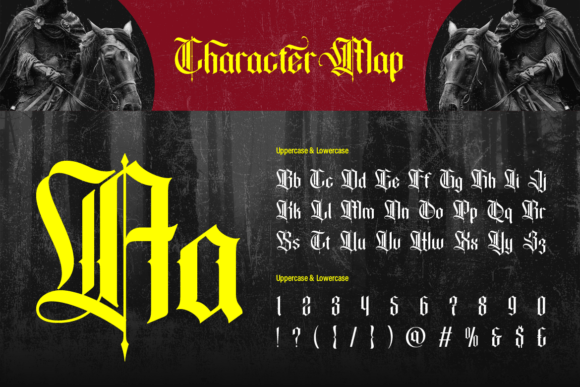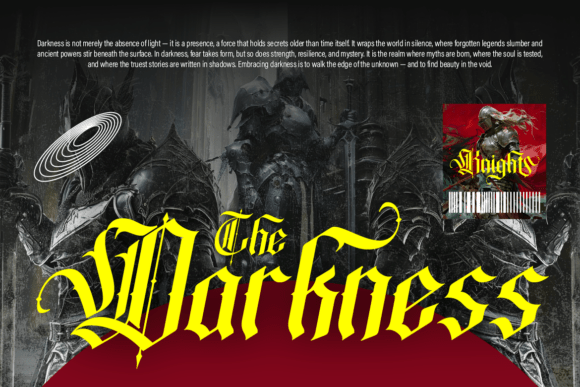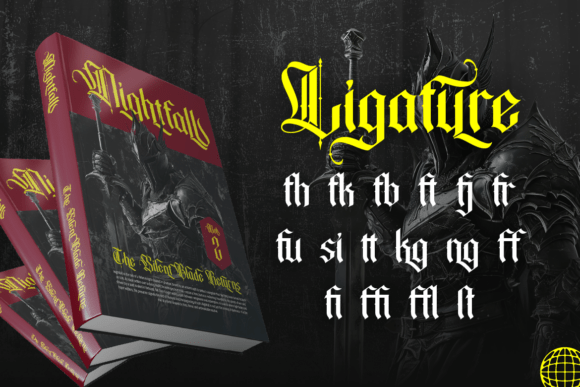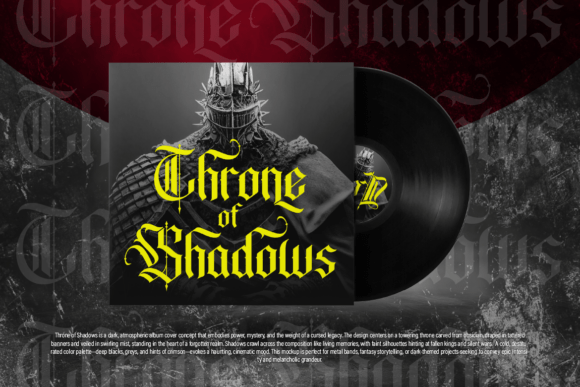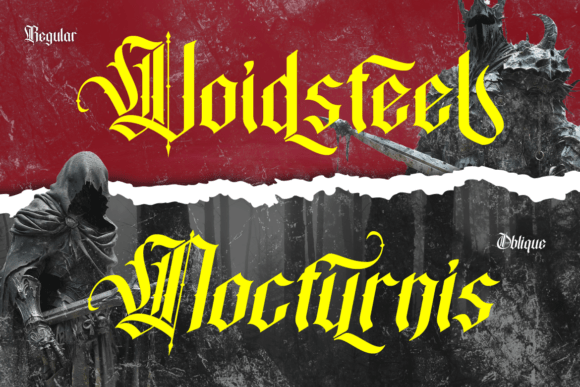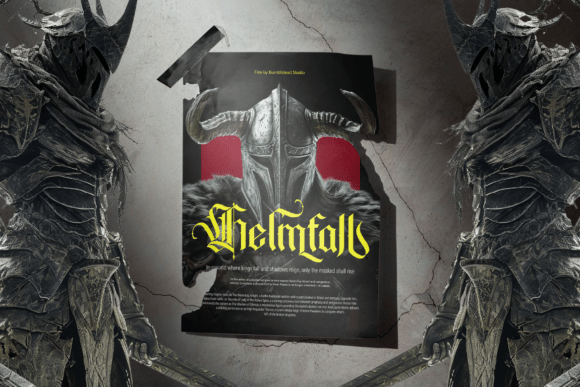
Introducing Bathory: Unleash the Dark Elegance of Gothic Typography
In the realm of typography, few fonts evoke the essence of darkness, mystery, and gothic allure as profoundly as Bathory. This blackletter font is meticulously crafted to bring a bold sense of drama and elegance to your designs, making it an ideal choice for projects that demand a touch of the mystical and the medieval. With its thick, ornamental strokes, sharp curves, and dramatic flourishes, Bathory is not just a font; it’s an experience, transporting you and your audience to worlds of fantasy, medieval lore, or occult mysticism.
Design Flexibility with Two Distinct Styles
Bathory is offered in two distinct styles: Regular and Oblique. This dual offering provides designers with a range of creative possibilities, allowing for visual flexibility that can cater to various design needs. Whether you’re crafting a poster for a metal band, designing the cover of a fantasy novel, or creating branding for a mystical or medieval-themed business, Bathory’s versatility ensures that your project stands out with a unique and captivating aesthetic.
Crafting Dark and Mysterious Atmospheres
Imagine the dark, haunting landscapes of Dark Souls or the hellish realms of Diablo. Bathory’s design is inspired by these and similar universes, bringing to your projects a sense of depth and mystery. The font’s bold and dramatic appearance is perfect for evoking the eerie atmospheres that are characteristic of these worlds. For metal band posters, Bathory’s gothic vibe offers a powerful way to express the intensity and emotion of the music, making it a popular choice among designers in the music industry.
Applications of Bathory Font
The applications of Bathory are as varied as they are vast. Here are some of the most popular uses:
- Game or Movie Covers: Give your project a standout title that captures the essence of its theme.
- Metal Music Posters: Perfect for conveying the power and emotion of metal music.
- Festival Flyers: Create eye-catching promotional materials for gothic or music festivals.
- Tattoo Designs: Add a personal touch of gothic elegance to tattoo designs.
- Merchandise: Elevate brand merchandise with a distinctive and memorable typographic style.
- Book Titles: Especially for genres like fantasy, horror, or historical fiction.
- Branding: Ideal for businesses that embrace gothic or mystical aesthetics.
Why Choose Bathory?
Bathory is more than just a font; it’s a statement. It offers:
- Unique Aesthetic: A distinctive blackletter style that sets your designs apart.
- High Versatility: Suitable for a wide range of projects, from digital to print.
- Ease of Use: Designed to be legible and impactful, even in smaller sizes.
- Emotional Connection: Evokes a strong emotional response, perfect for projects aiming to leave a lasting impression.
Bathory is a gateway to creating visually striking and emotionally resonant designs. Its gothic charm, versatility, and dramatic flair make it an indispensable tool for designers looking to infuse their work with a sense of mystery, power, and elegance. Whether you’re working on a metal band’s poster, a fantasy game’s cover, or any project that calls for a bold and mystical aesthetic, Bathory is your go-to font. Embrace the darkness and let Bathory guide your creative journey into the realms of the gothic and unknown.